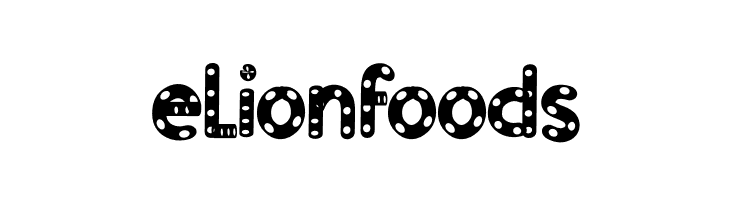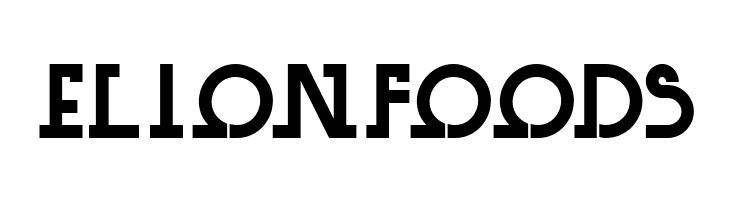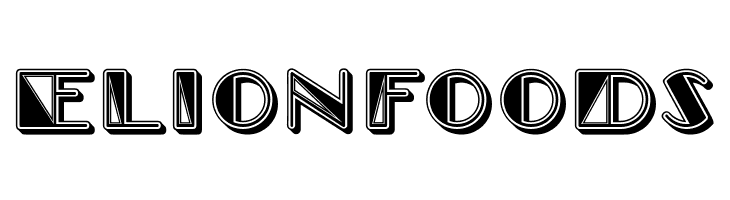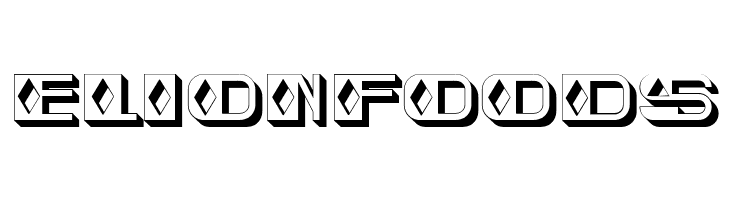
A playful, donut-inspired font with bold, rounded characters and circular cutouts.
A bold, futuristic font with geometric elements and unique cutouts.
A bold, playful font with rounded edges and decorative cutouts.
A bold, geometric font with sharp angles and unique cutouts.
A bold, geometric font with modern, artistic cutouts.
A bold, geometric font with triangular cutouts and strong contrast.
A bold, geometric font with a 3D effect and intricate cutouts.
A bold, playful font with bubble-like shapes and decorative cutouts.
A bold, decorative font with geometric cutouts and a shadow effect.
A bold, decorative font with geometric patterns and diamond-shaped cutouts.